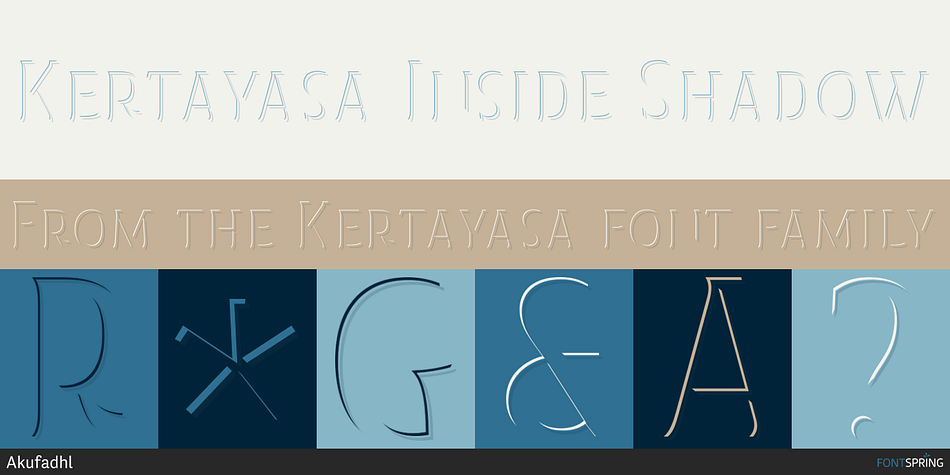
Kertayasa Inside Shadow
Kertayasa is a display serif font family. This typeface has ten styles and was published by Akufadhl.
Kertayasa is a layered typeface inspired by an old signage and vintage letter painting. it consist of 10 Layers, a wide support of latin languages, and some alternates. its able create a beautiful vintage display style and logo.
• Kertayasa Regular
• Kertayasa Inline
• Kertayasa Inside
• Kertayasa Inside Shadow
• Kertayasa Inside Line
• Kertayasa Inside Dotted
• Kertayasa Shadow
• Kertayasa Shadow 3D
• Kertayasa Shadow Line
• Kertayasa Outline
Style Inside Shadow